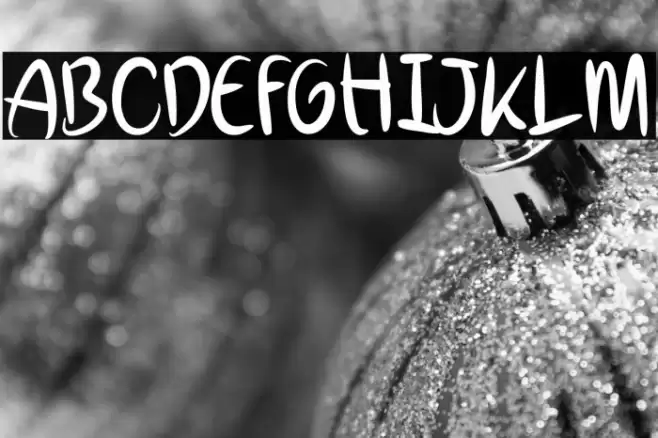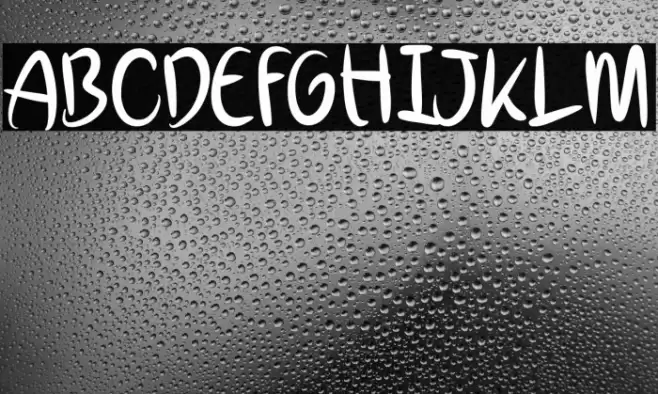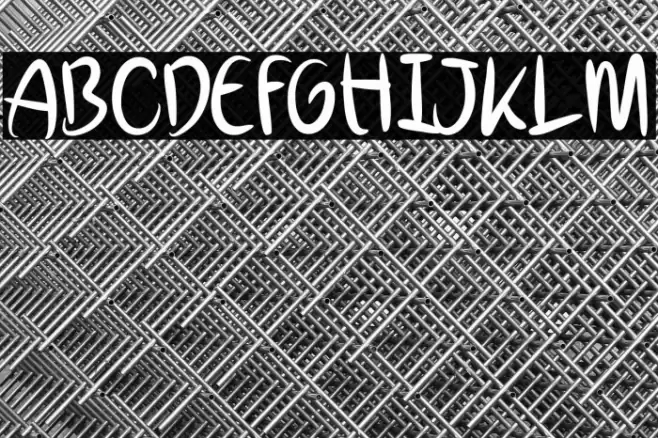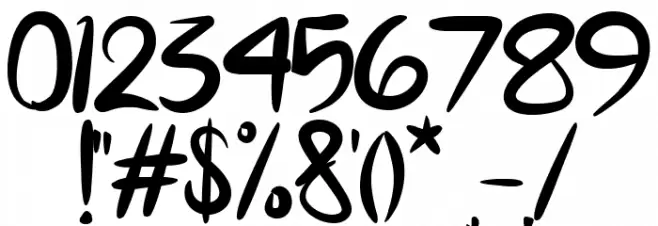
Creata DEMO Font
Creata DEMO Description
This font features a bold and expressive handwritten style, characterized by its fluid and dynamic strokes. The uppercase letters are tall and slightly condensed, while the lowercase letters exhibit a playful and casual flair. The numbers and special characters maintain the same energetic and lively appearance, making the font suitable for creative and informal designs. The overall look is modern and artistic, with a touch of whimsy that adds personality to any text.
A bold, expressive handwritten font with fluid strokes and a playful style from Uncategorized fonts.
- Font: Creata DEMO
- Proposed Projects: Ideal for greeting cards, posters, branding projects, and social media graphics where a personal and artistic touch is desired.